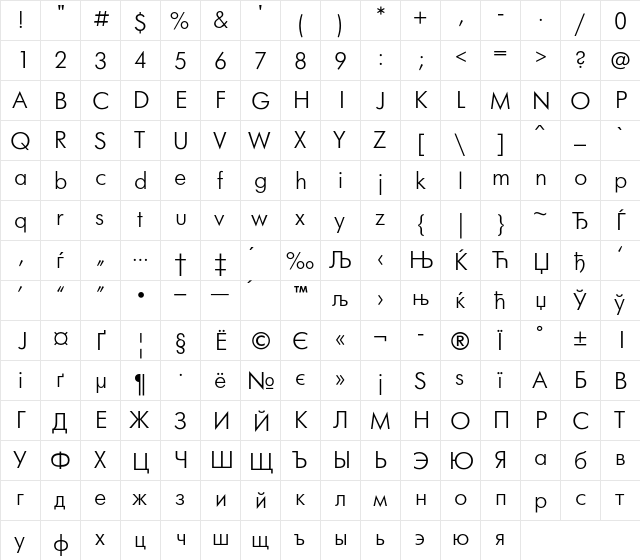
FuturaFuturisLightC Regular Font Preview
FuturaFuturisLightC Regular
Design Context for FuturaFuturisLightC Typeface
FuturaFuturisLightC has a distinctly futuristic character, with geometric precision and clean angles that feel at home in technology, gaming, and sci-fi contexts. The delicate stroke weight brings airiness and refinement to layouts.